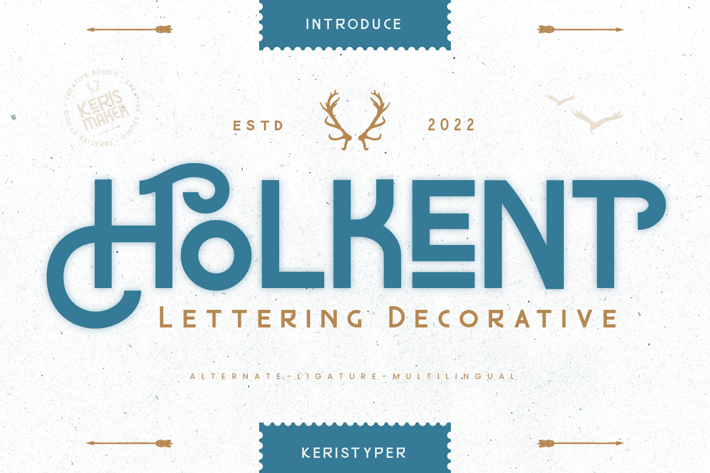
Holkent Font
Proudly present Holkent is a unique fancy, modern, vintage & decorative serif font. This font is good for logo design, Social media, Movie Titles, Books Titles, short text even long text letters, and good for your secondary text font with the script, sans, or serif.
Featured:
Standard Uppercase & Lowercase
Multilingual : ä ö ü Ä Ö Ü ß ¿ ¡
Alternate & Ligature